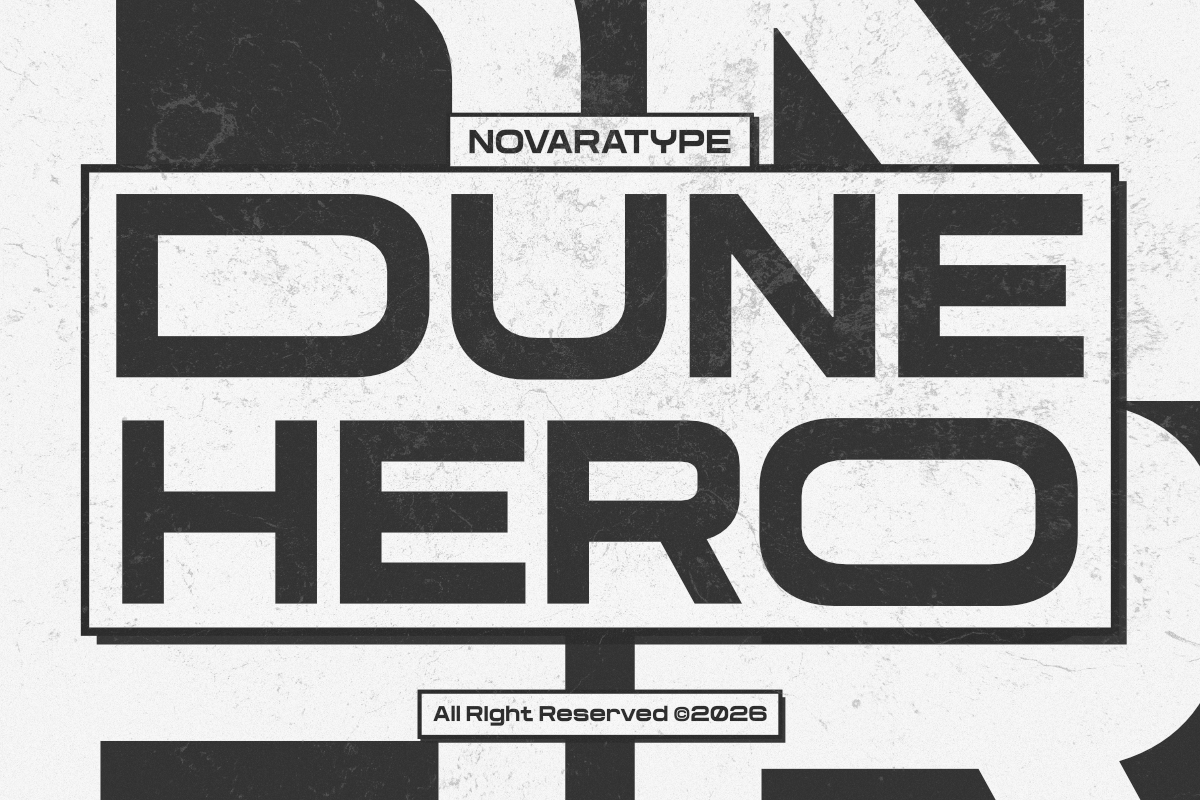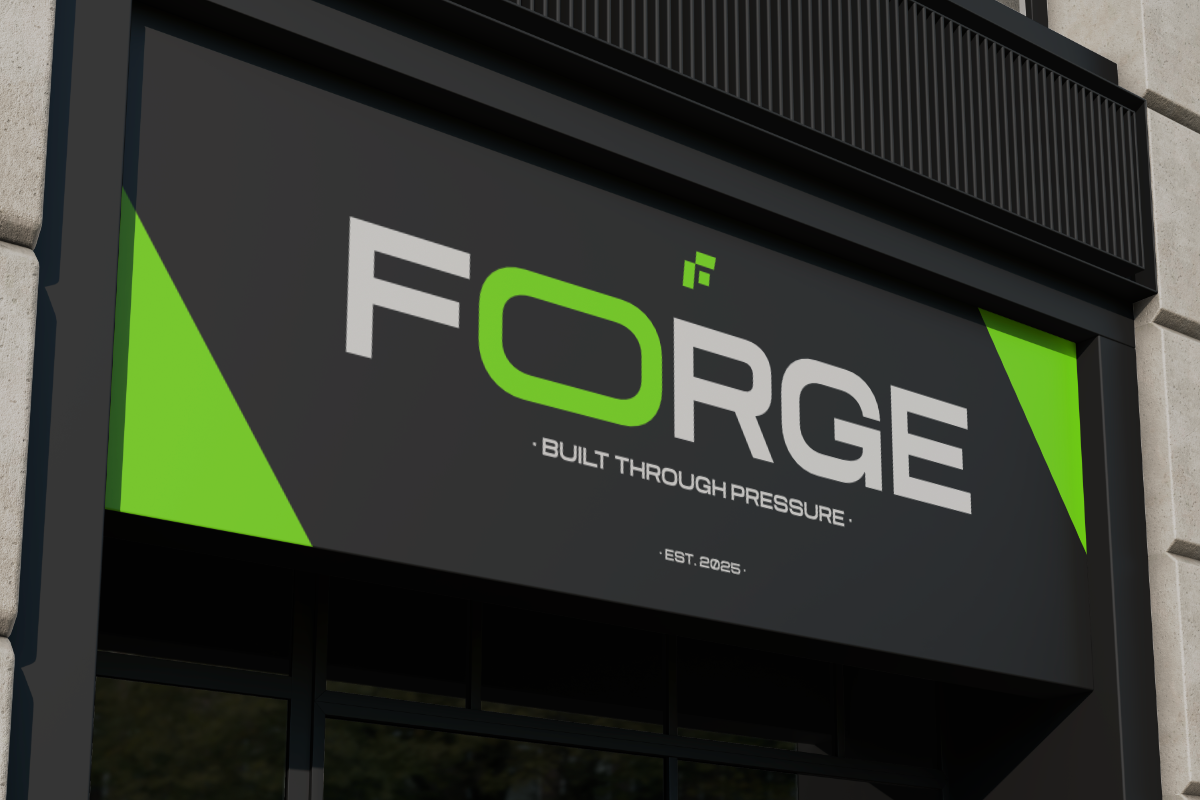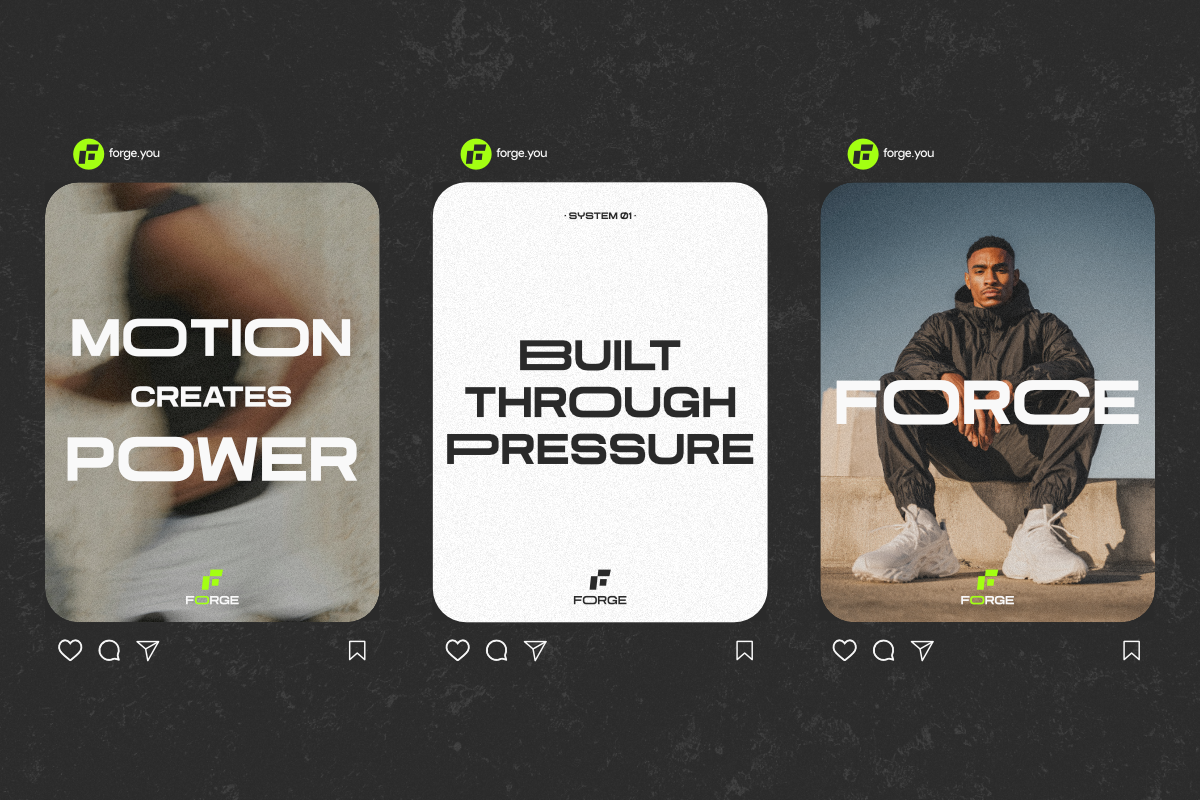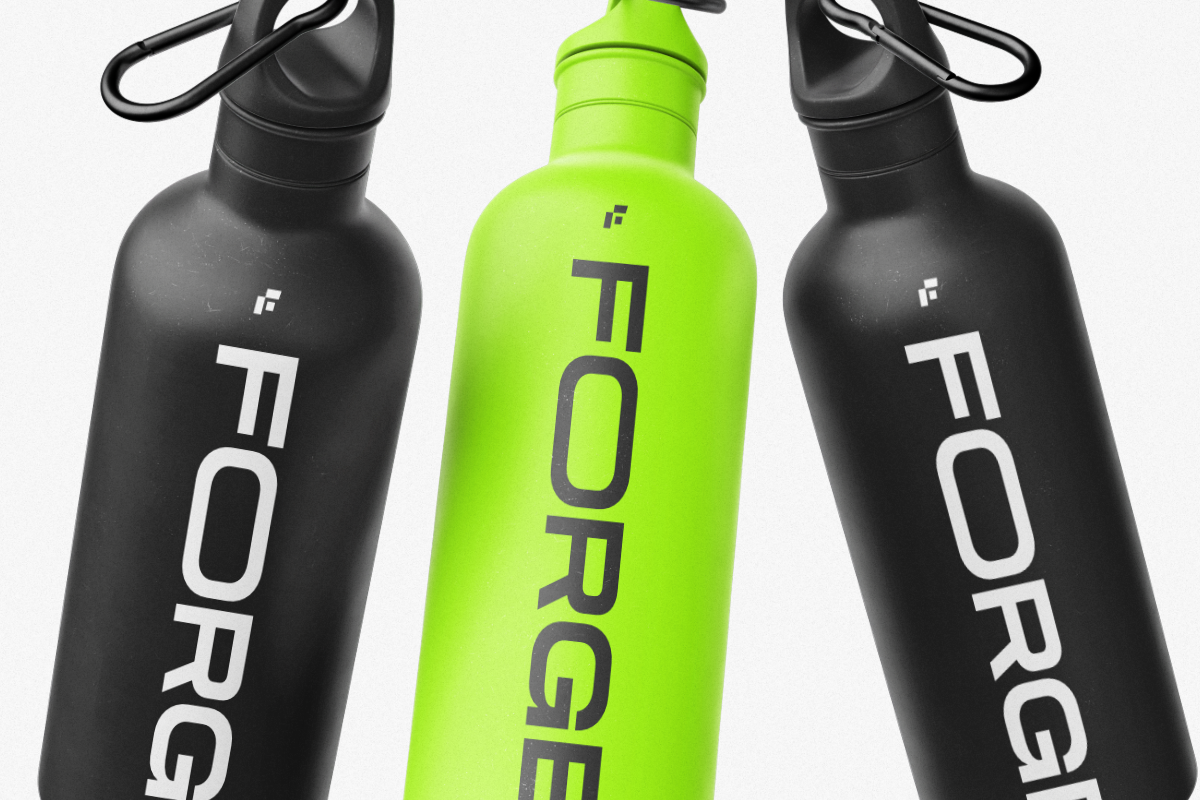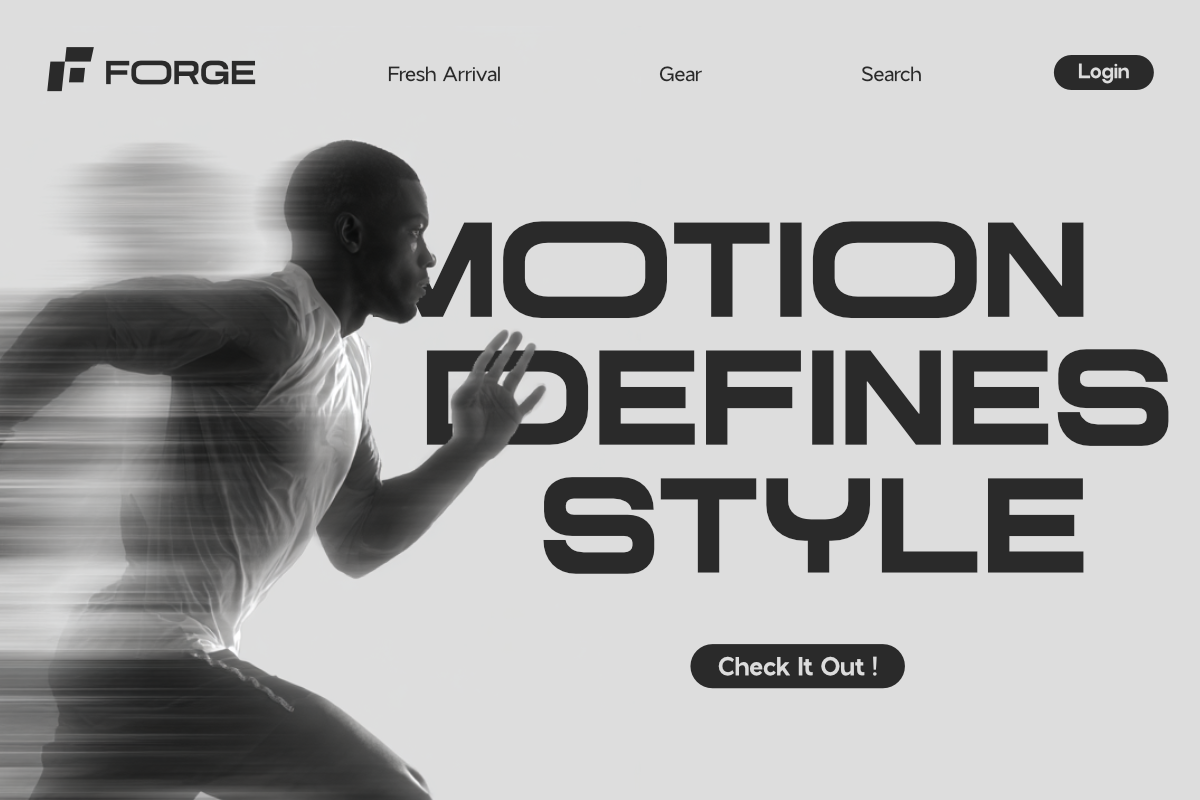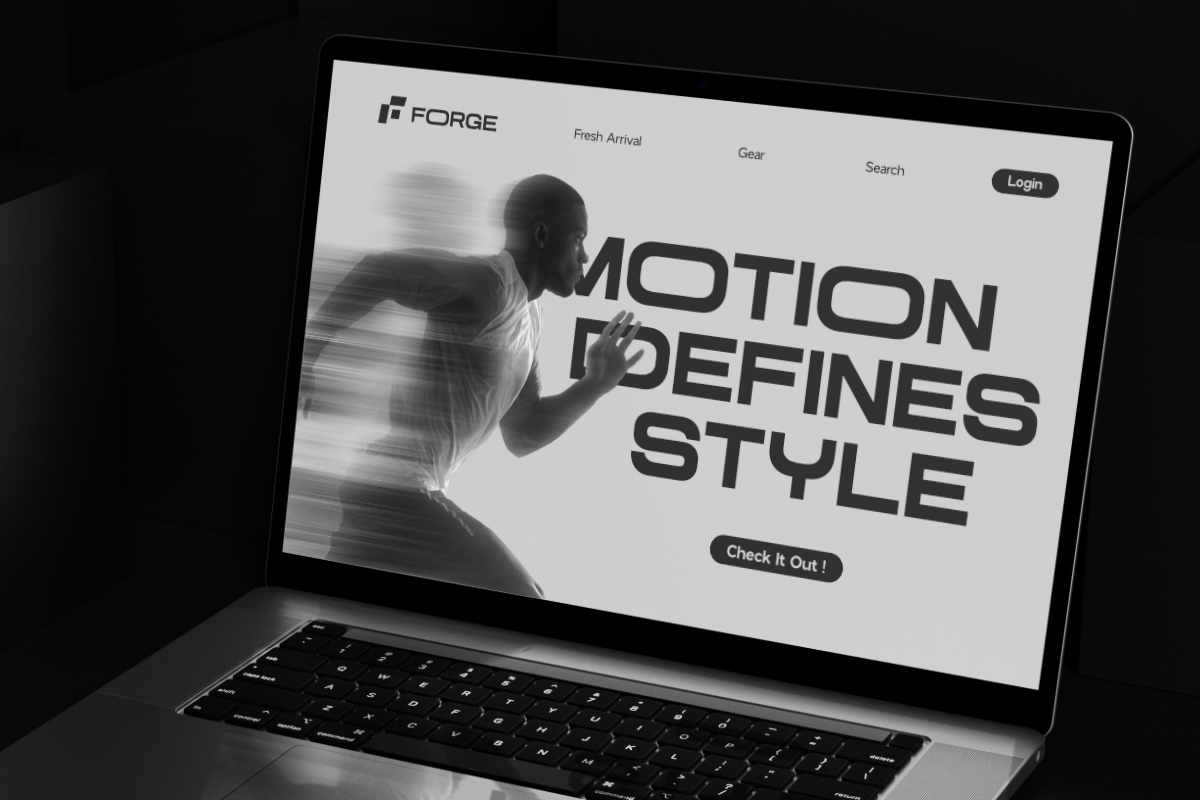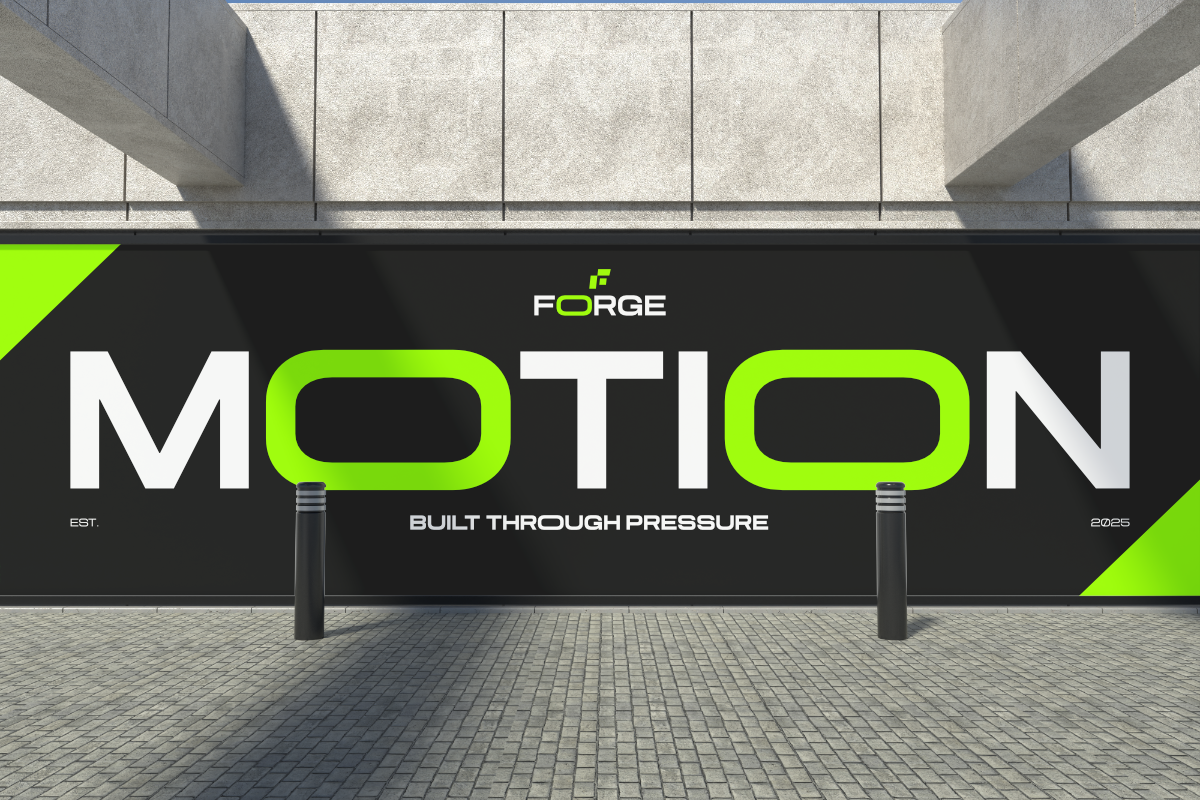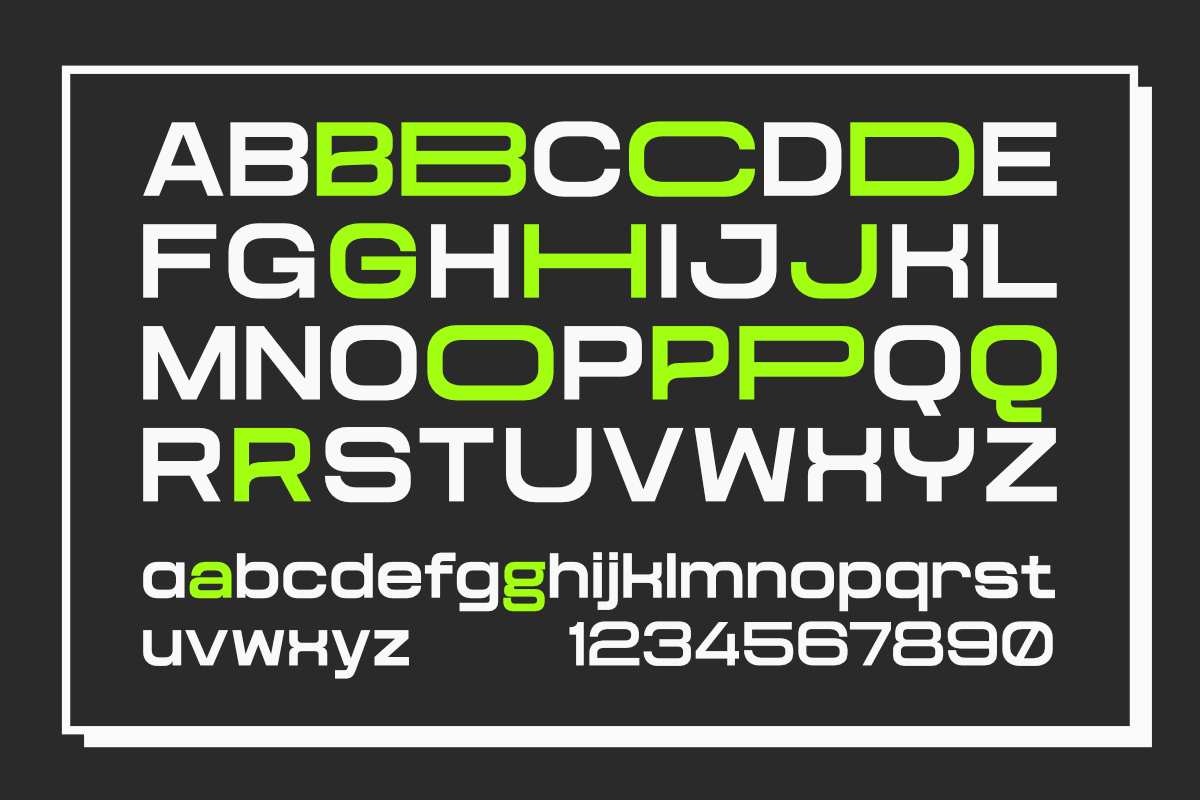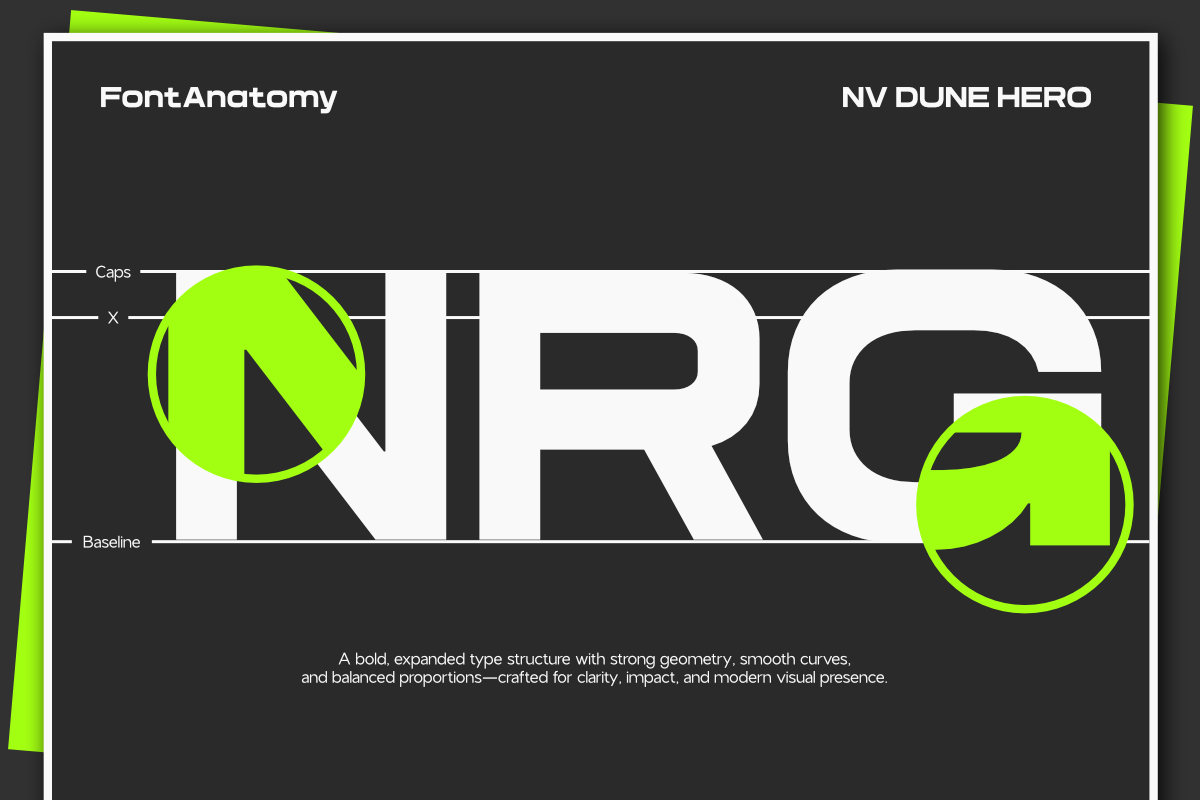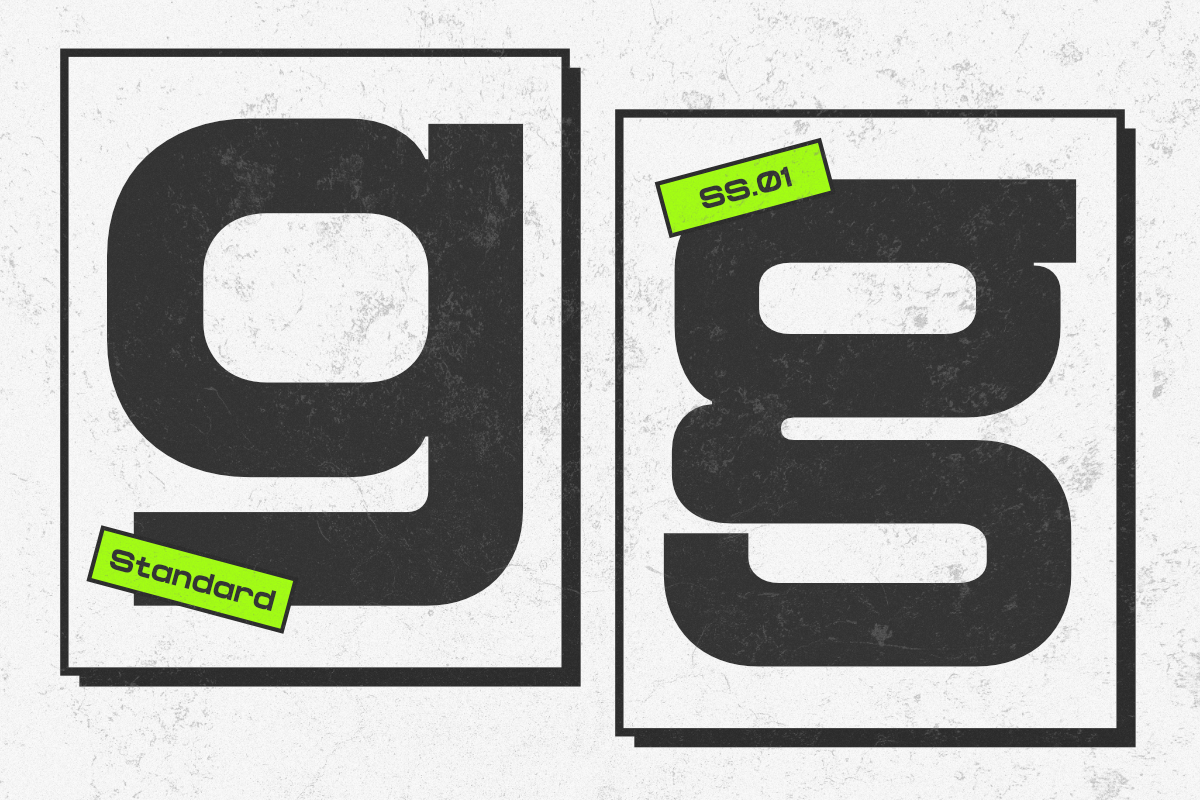
NV Dune Hero Expand Sans Serif Font Family is a bold and expressive expanded type system designed to create strong visual impact with modern precision. Developed by NovaraType, NV Dune Hero combines wide proportions, geometric balance, and clean construction—making it an excellent choice for branding, posters, headlines, sports visuals, streetwear graphics, and contemporary display design.
NV Dune Hero is carefully crafted to perform across a variety of creative applications while maintaining a bold and consistent typographic identity. Its expanded structure delivers a confident visual presence, making every headline feel impactful and modern. From large-scale campaigns to digital branding systems, NV Dune Hero provides the versatility and character needed for standout visual communication.
NV Dune Hero Expand Sans Serif Font Family Includes:
• Multiple Weights
• Expanded Styles
• Alternates & Ligatures
• Accented Characters